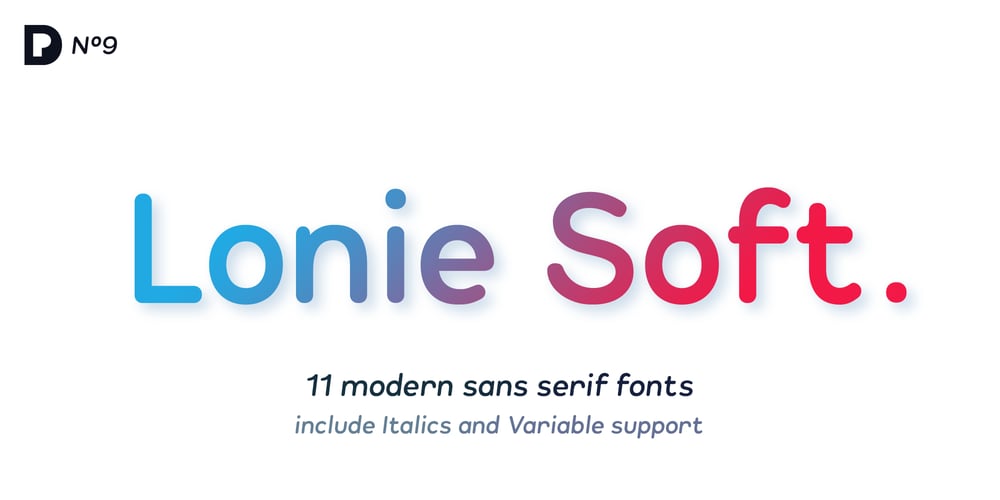
Lonie Soft Font Family was designed by Nathanaël Dorange and published by Par Défaut. Lonie Soft contains 11 styles and family package options. Lonie Soft is sans serif font family with rounded corners (include 5 weight, italic and variable)It contains more than 1200 characters including the Latin, Cyrillic and Greek alphabetThere are also 15 OpenType features (Superior; Inferior; Numerator; Denominator; Fraction; Tabular Lining; ;OldStyle Figure; Small Capital; Small Capitals from Capitals; Contextual Alternate; Case Sensitive; Ordinals; Access All Alternates; Stylistic Set).